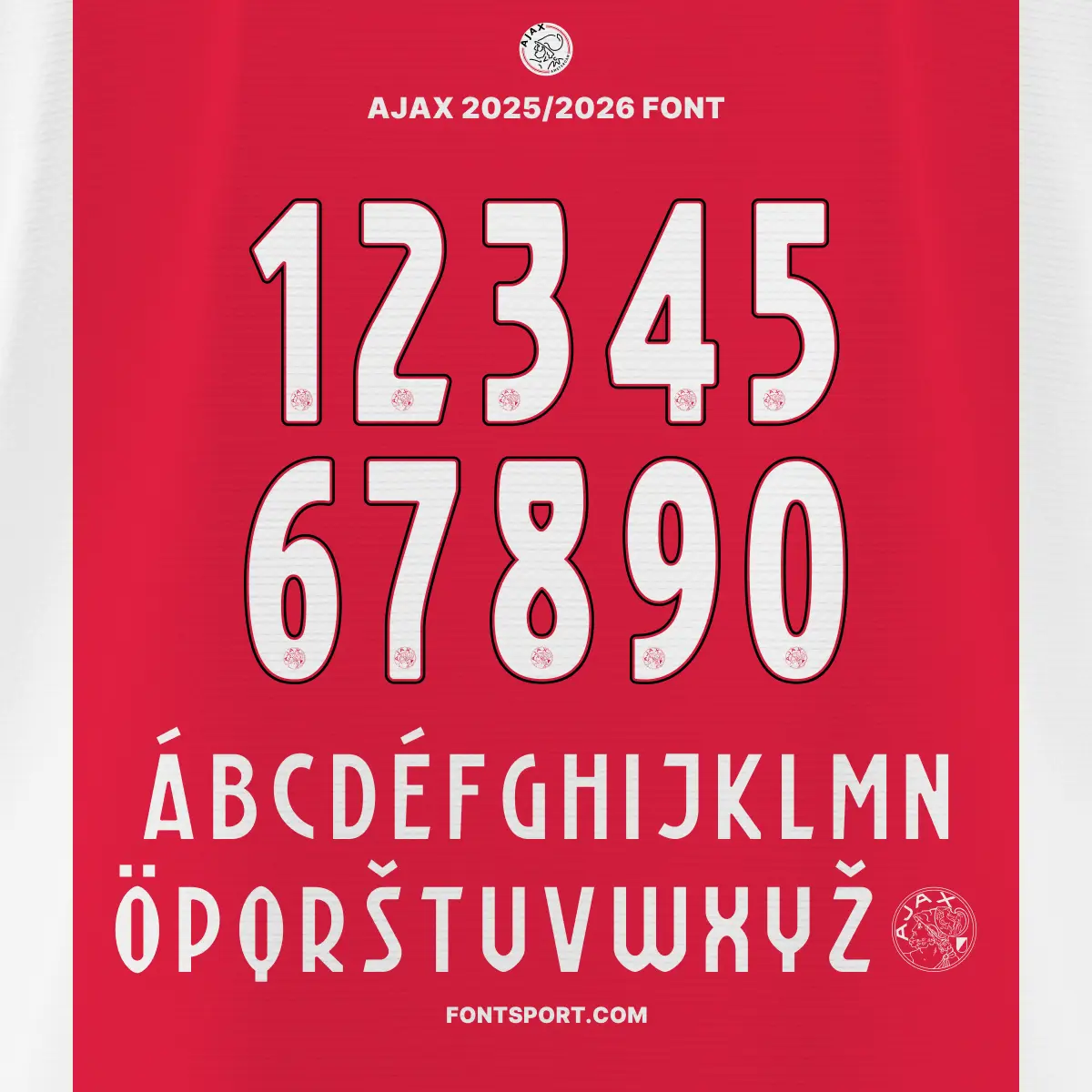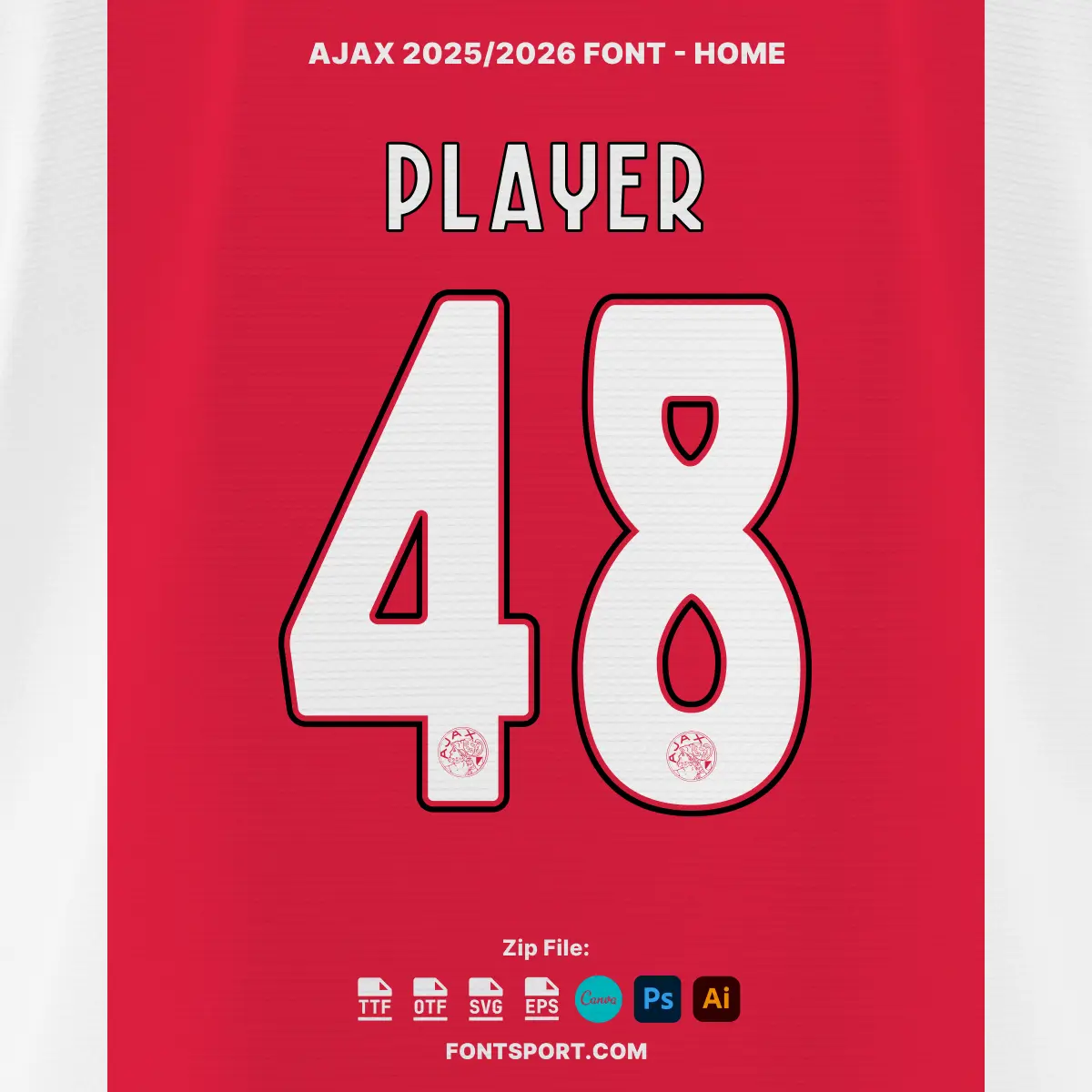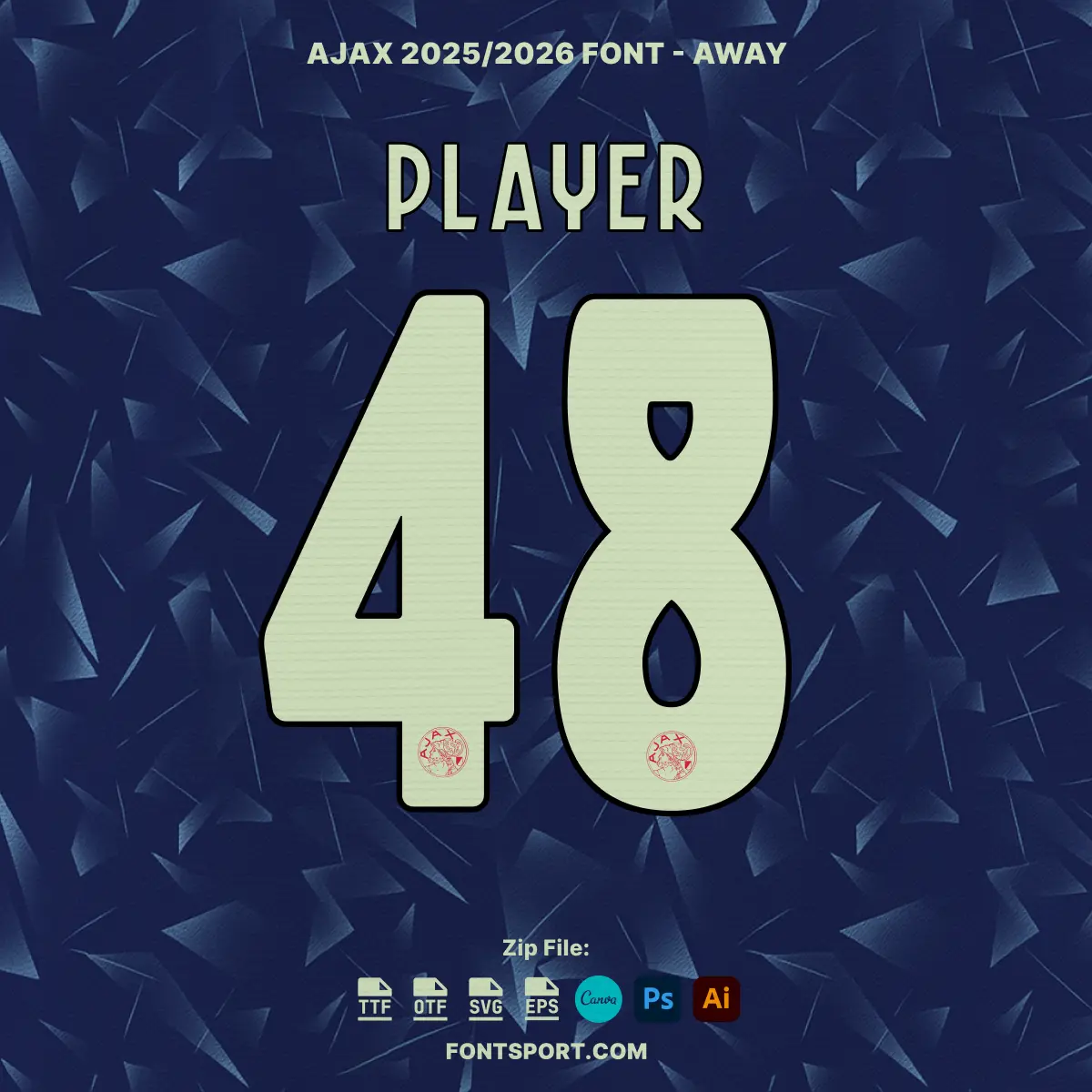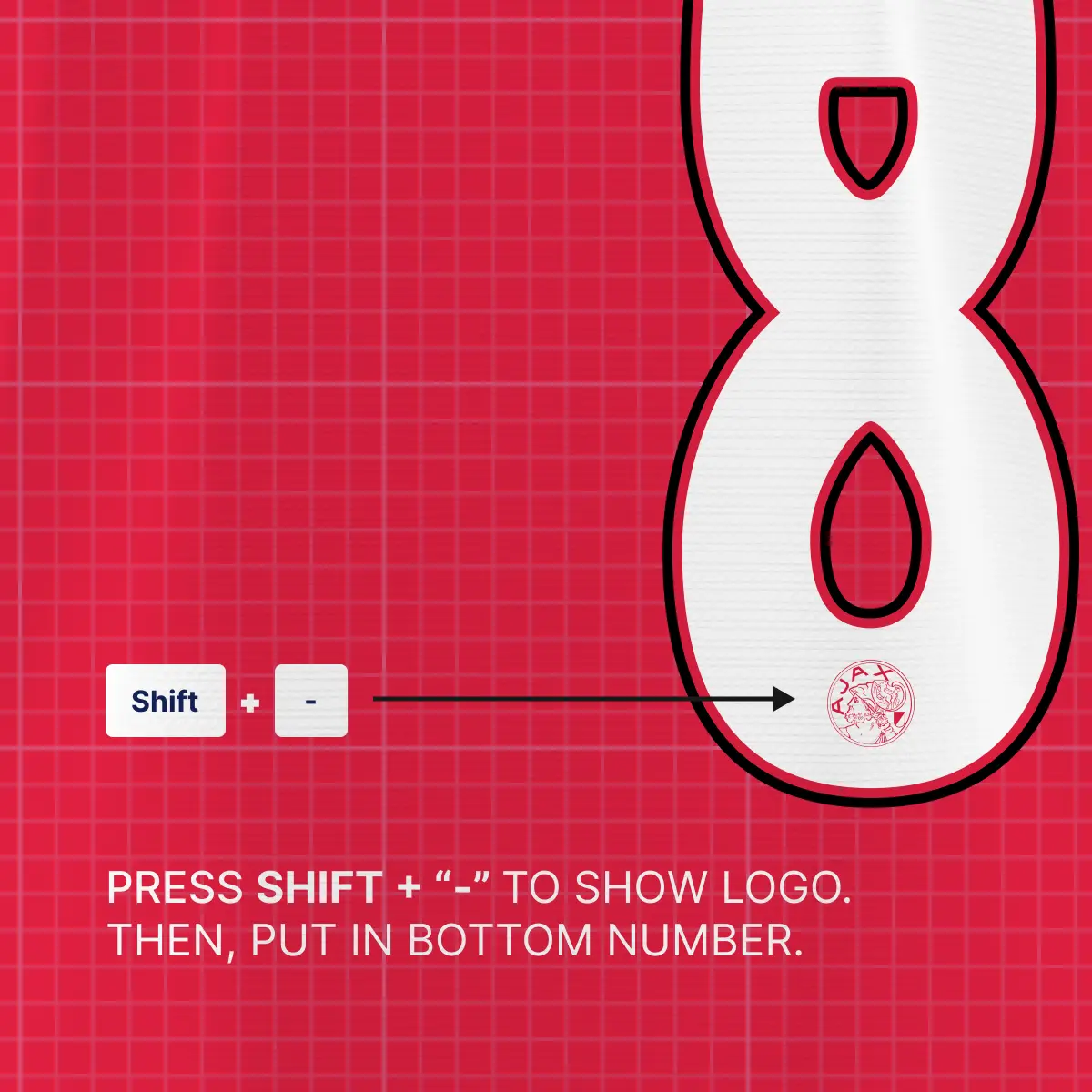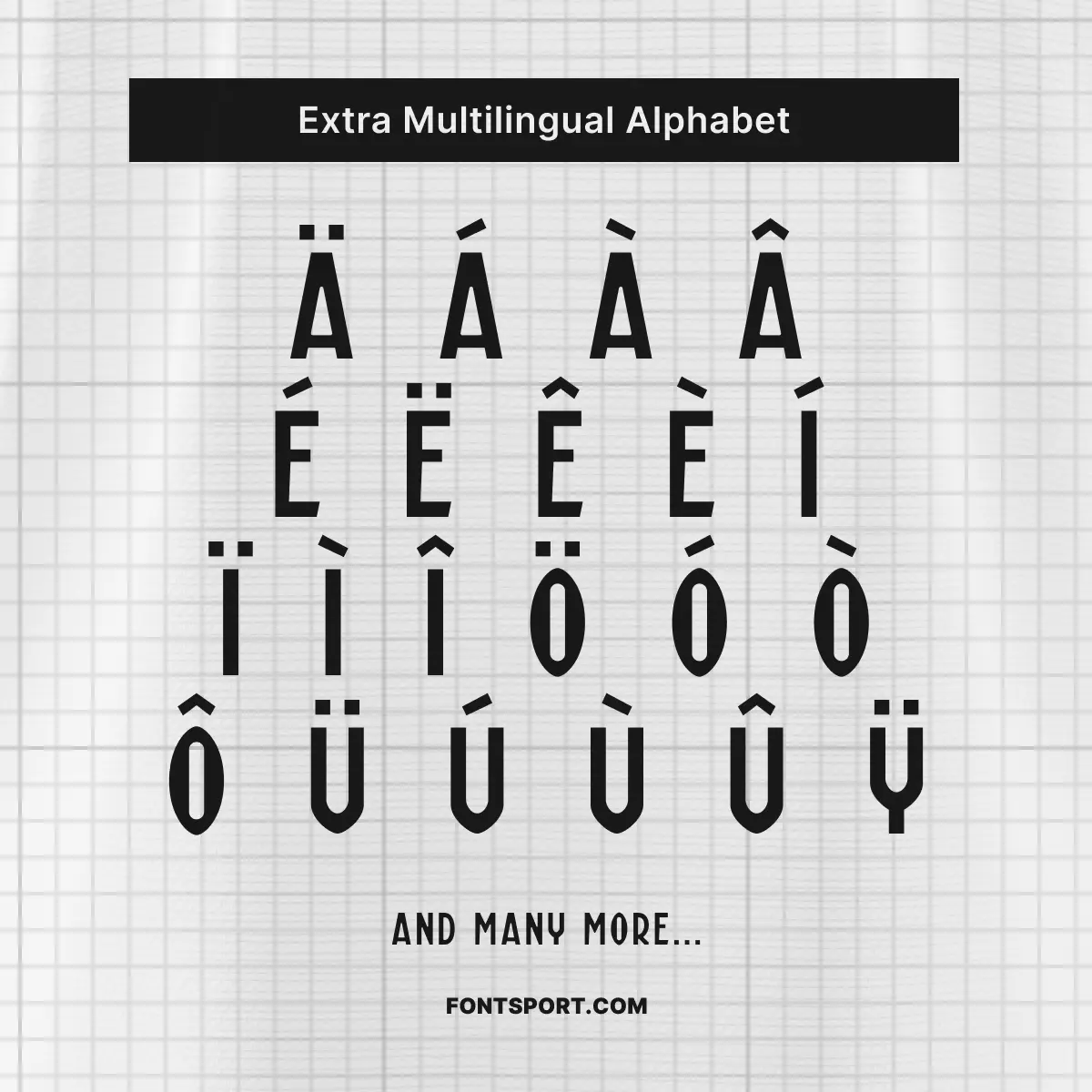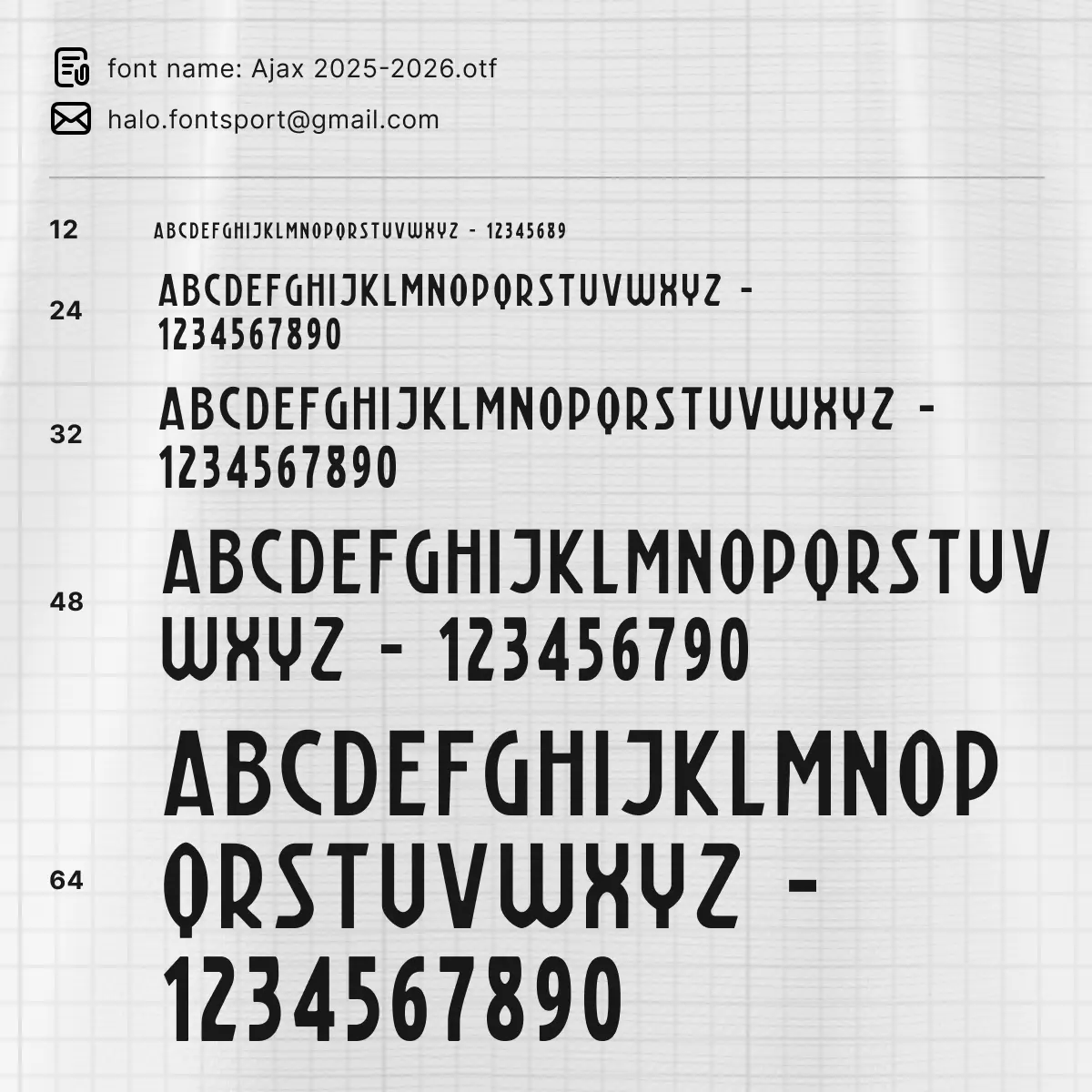
Ajax AFC Font Kit 2025/2026
The Ajax Font Kit 2025/2026 is a modern, sharp, and professional typeface inspired by the iconic Dutch football club, AFC Ajax. This font kit is a tribute to the typography used during the club’s 2025/2026 Eredivisie campaign and is designed with designers, fans, and merch creators in mind.
Whether you’re crafting custom jerseys, matchday posters, fan-made merchandise, or digital content for social media, the Ajax Font Kit delivers a clean, football-authentic look that’s instantly recognizable. Perfect for both beginners and experienced designers, this kit ensures optimal legibility and a consistent visual language that represents the energy of Ajax Amsterdam.
• Full uppercase A–Z alphabet and numbers 0–9
• Multilingual Latin support with accents and diacritics
• Built-in Ajax Amsterdam logo glyph – type to display instantly
No need to separately insert logos—simply type to reveal Ajax’s high-precision emblem directly from the font itself. The number set also includes stylized cuts and spacing that reflect the energetic and minimalistic style of Ajax’s official kits.
This font kit has been carefully developed to reflect Ajax’s refined and proud identity—bringing the same sharp visual signature seen on players’ kits like Steven Bergwijn and Kenneth Taylor, right into your design arsenal.
⚽ Inspired by the official Ajax Amsterdam 2025/2026 Eredivisie Font ⚽
Ajax 2025/2026 font kit display – full A-Z uppercase and 0-9 numbers with Ajax Amsterdam logo, inspired by Eredivisie season typography